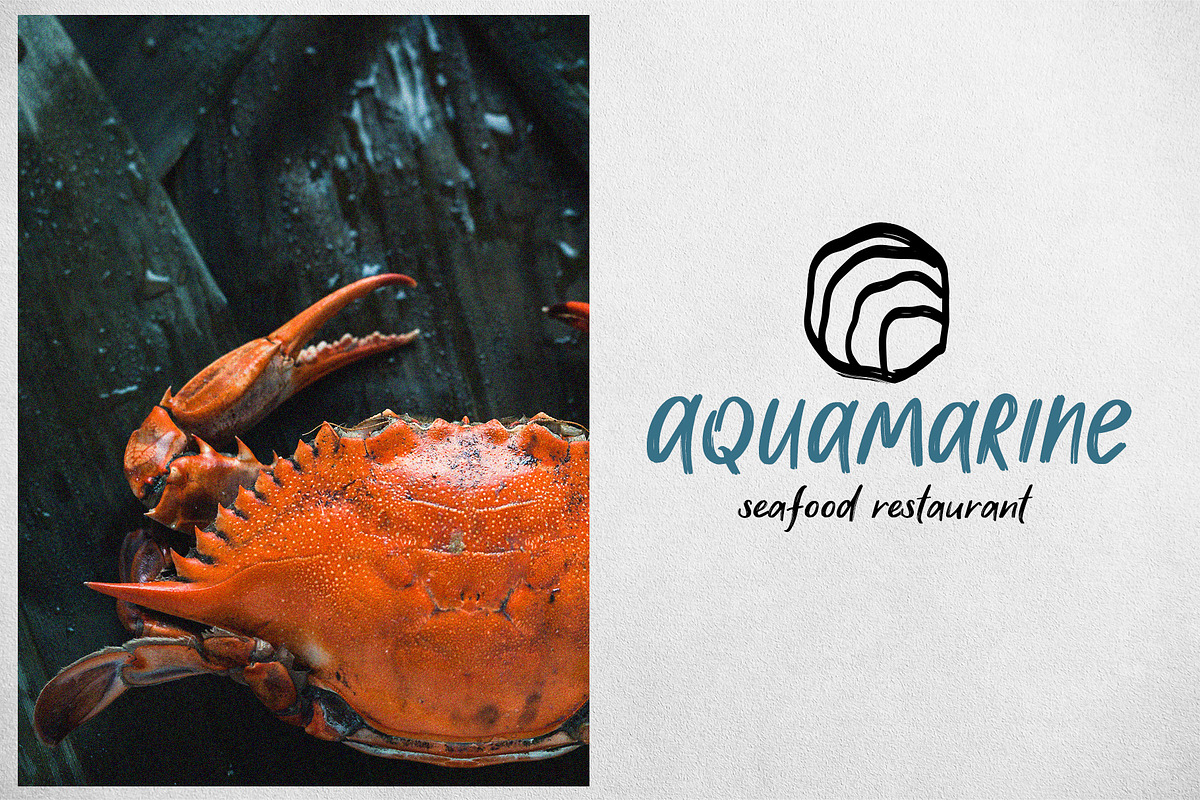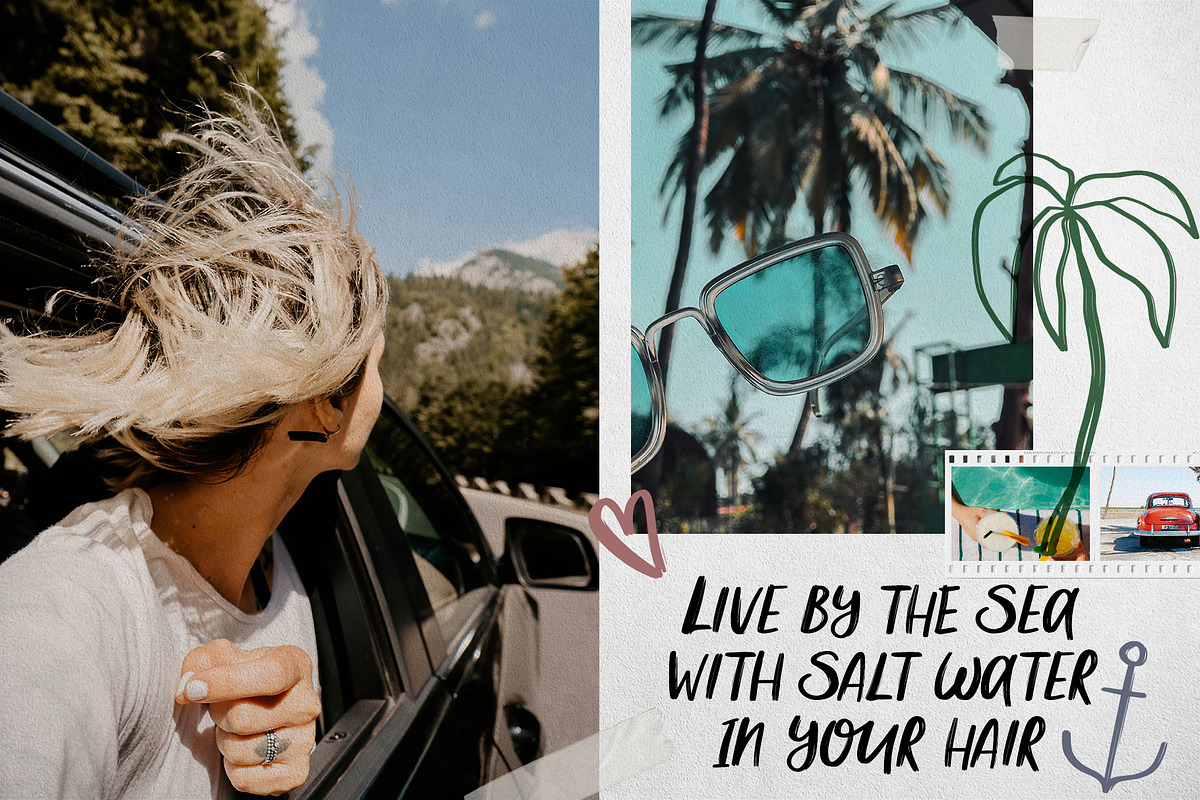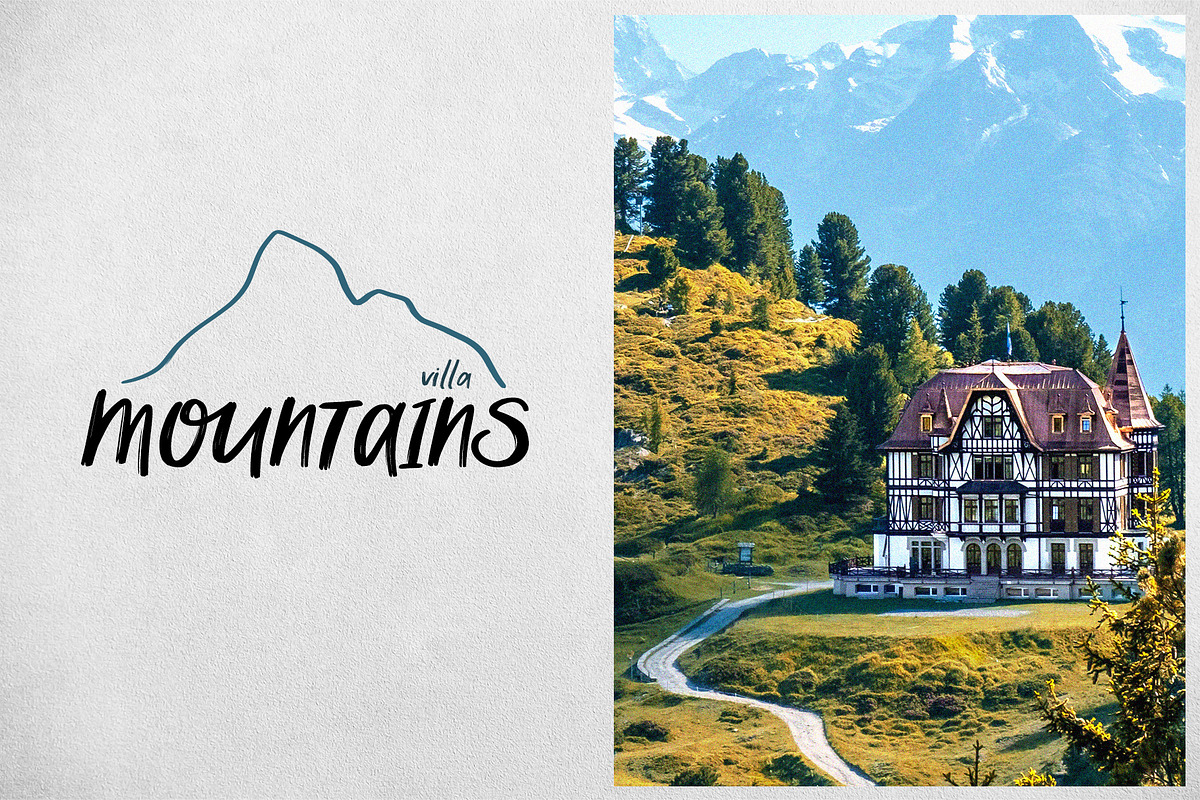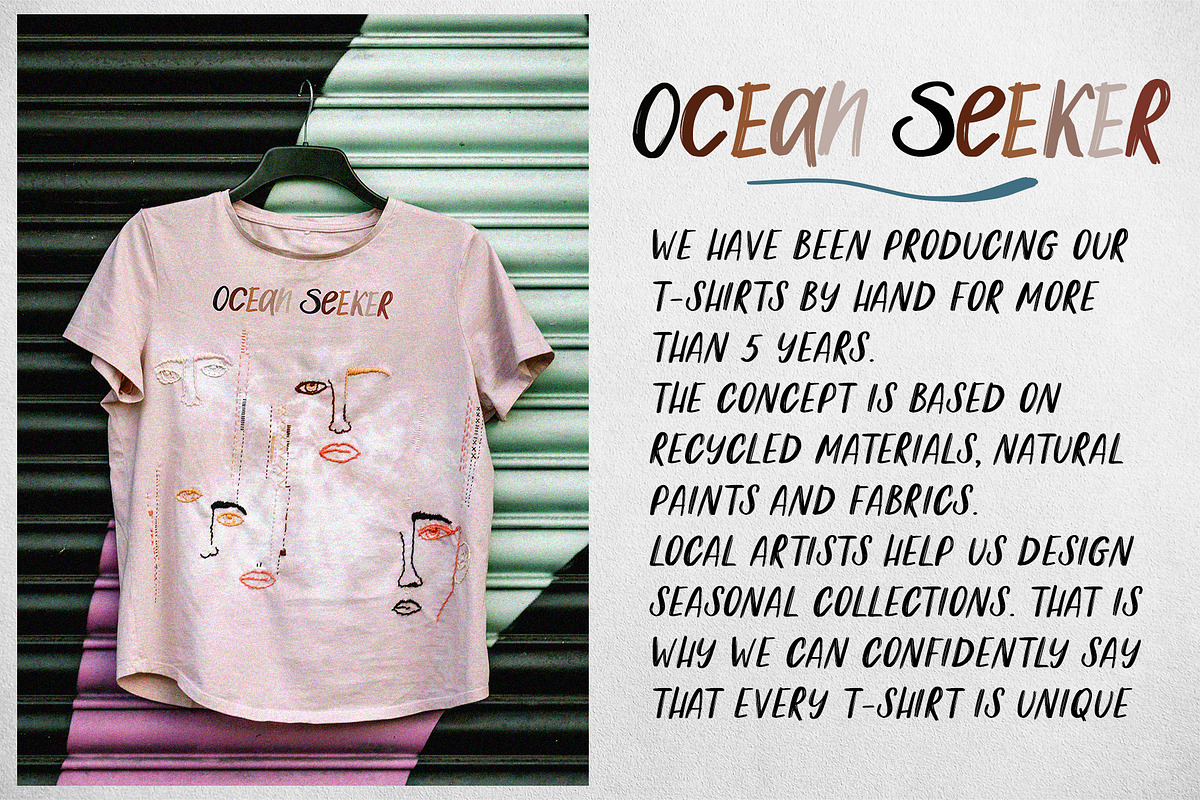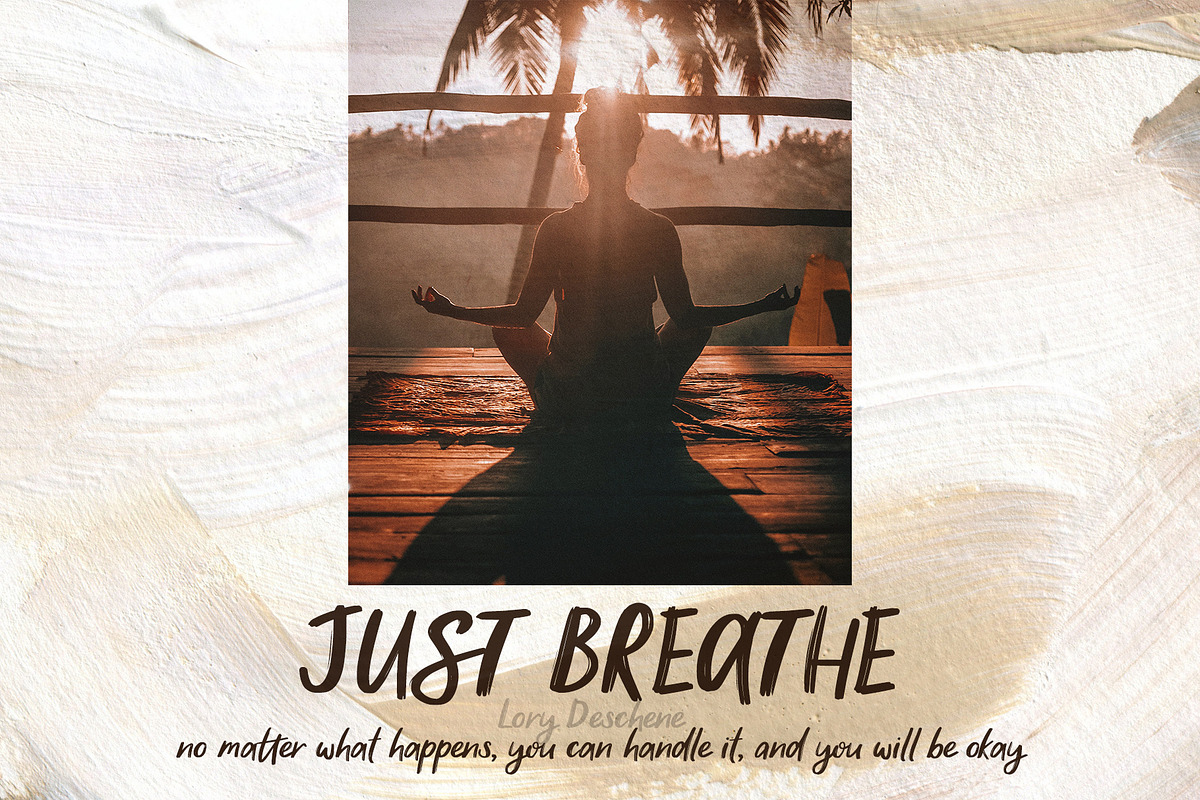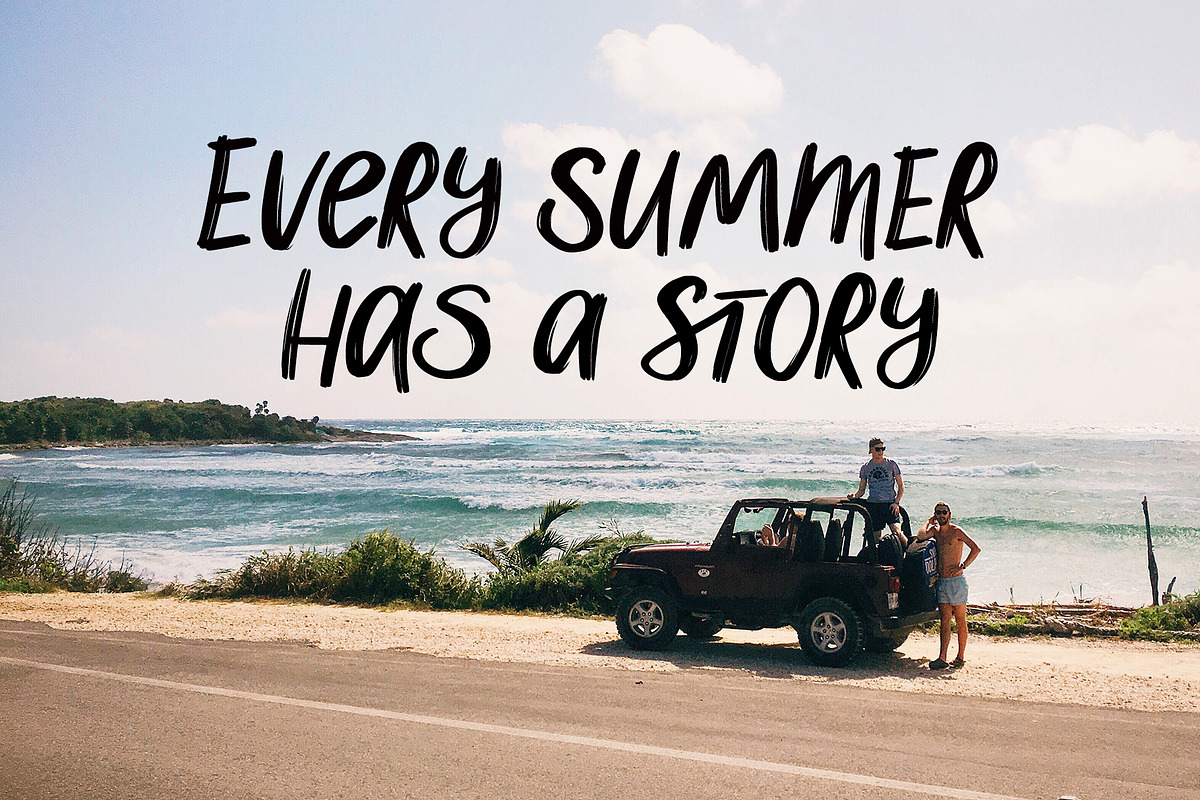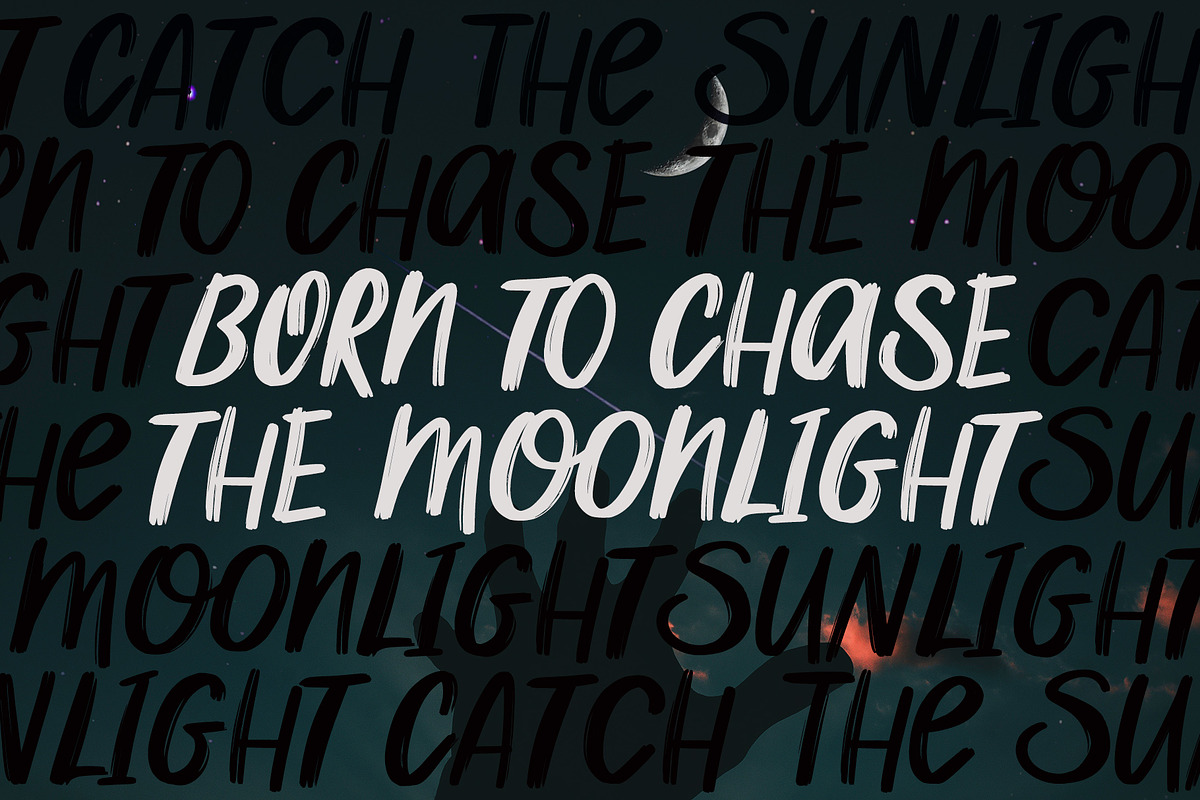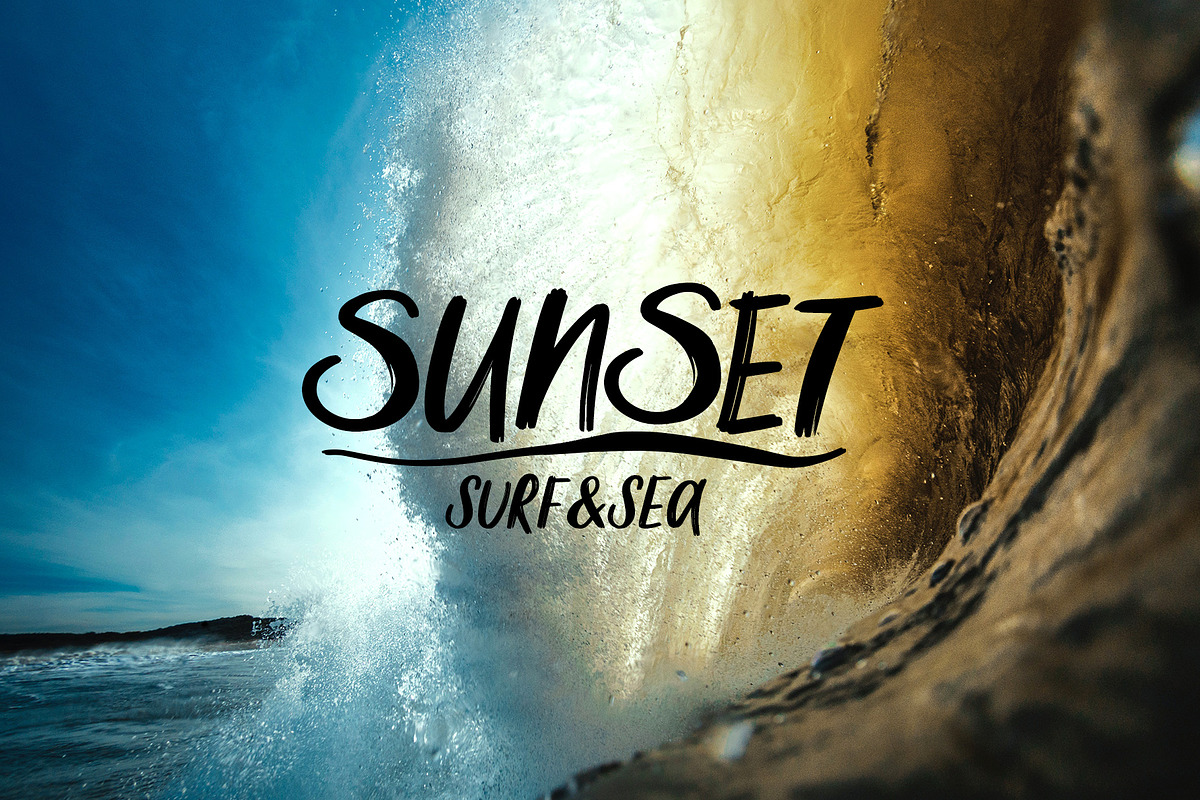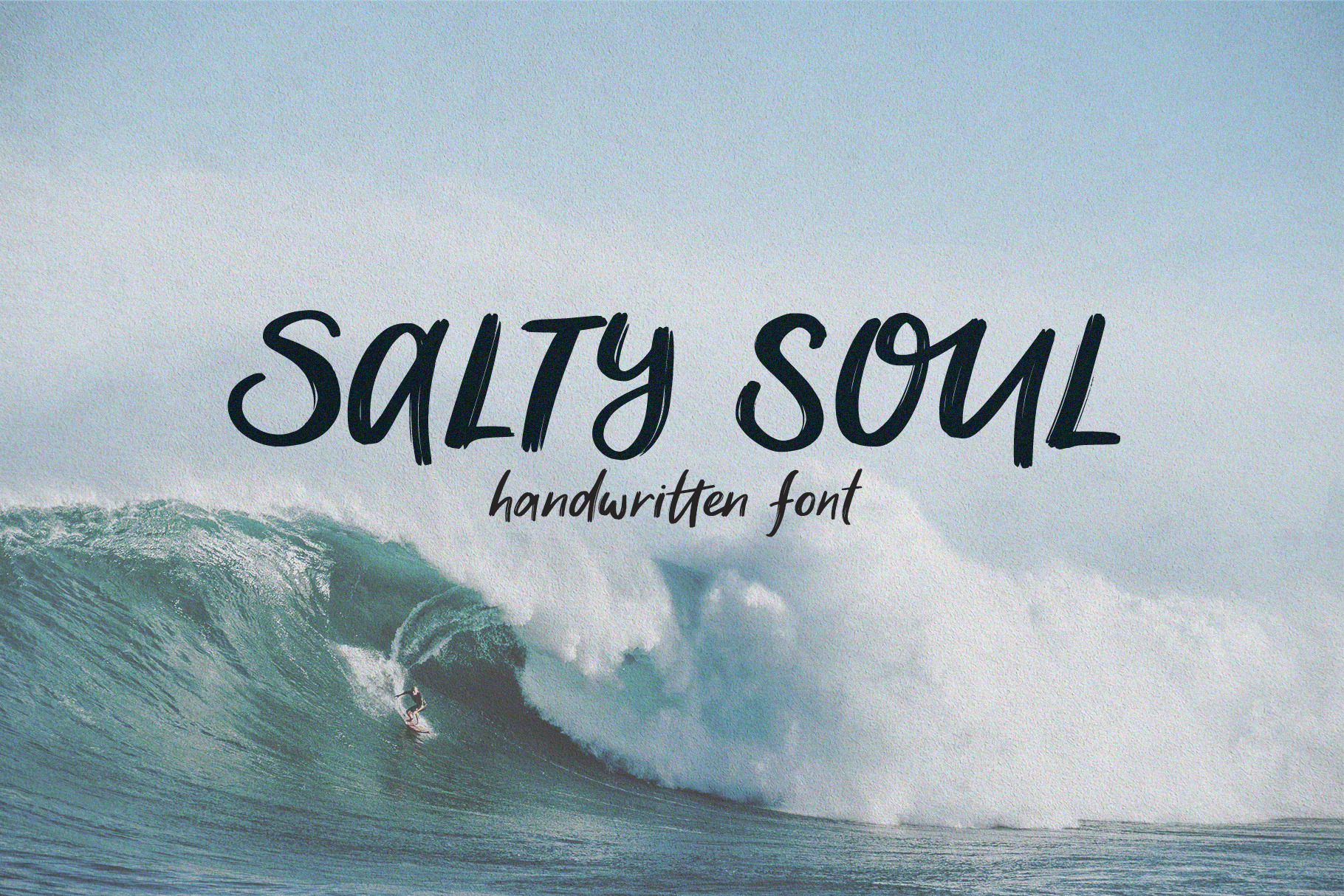
Salty Soul handwritten font sea
Salty Soul is a bold handwritten brush script font with the energy of summer, the freedom of open water, and the spontaneous warmth of lettering made for life outdoors.
Written with a brush, Salty Soul carries all the characteristics of confident hand lettering at the beach: thick, expressive downstrokes with visible bristle texture, sharp hairline upstrokes, and the kind of dry brush edges that make every word feel alive and in motion. The letters are bold and generous, with a strong rightward lean, long flowing ascenders and descenders, and mixed-case rhythm that feels natural and unforced — the way good handwriting does when the hand knows exactly what it wants to say.
This is a font built for coastal brands, summer campaigns, and anyone designing with sun, salt, and adventure in mind. It brings the spirit of surf culture into logos, packaging, and social media without trying too hard — it simply belongs there.
Stylistic alternates and ligatures for natural handwritten flow
Surf brands, beach lifestyle brands & coastal identity
Summer campaigns, seasonal packaging & labels
Logo design & handmade branding
Social media graphics, quotes & travel content
Posters, prints & apparel design
Websites & digital design with a summer vibe
Any project that needs warmth, movement, and coastal energy
Font features:
Bold brush handwritten script with dry brush texture and bristle separation on wide downstrokes
High stroke contrast — thick expressive downstrokes, sharp thin upstrokes — classic brush lettering structure
Strong rightward slant (\\~20–25°) with long flowing ascenders and descenders
Natural mixed-case rhythm — uppercase letters bold and expressive, lowercase compact and fluid
Stylistic alternates and ligatures for varied, natural letter combinations
The aesthetic: Salty Soul feels like a logo hand-lettered on a surfboard, a quote written in the sand, a brand that actually lives at the beach. It is the right font when a design needs to feel genuinely coastal — not decorative, not tropical-by-theme, but rooted in the real culture of surf, sea, and summer. Bold enough for headlines, personal enough for packaging, expressive enough to carry a brand identity all on its own.